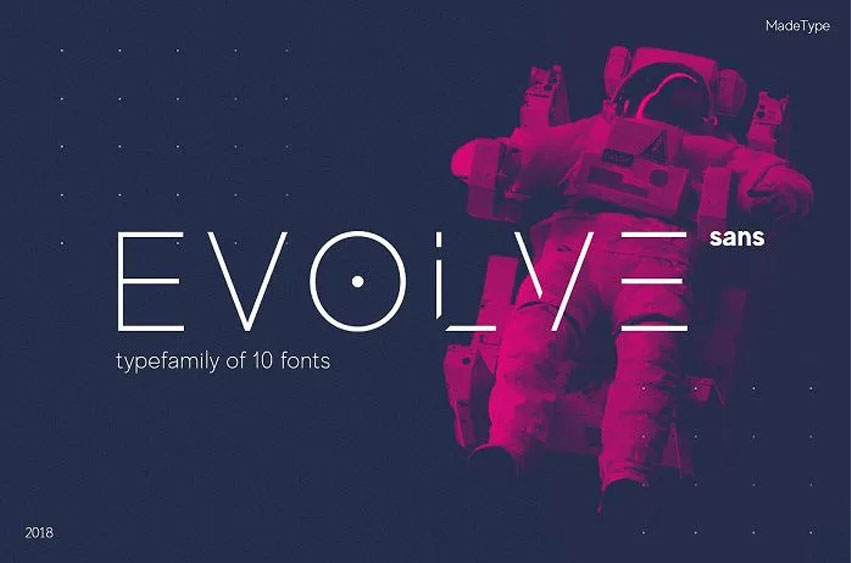
Evolve Font
Evolve Font is MadeType designed. MADE Evolve is a modern and futuristic sans-serif font family. The futuristic and geometric mix becomes a modern design.
The MADE Evolve family comprises 10 fonts, 5 sans serif weights, and 5 weights with futuristic caps, which brings up more flexibility. It is impeccable sans serif to vary your headlines, branding visual identity, poster, logo, magazines and etc.